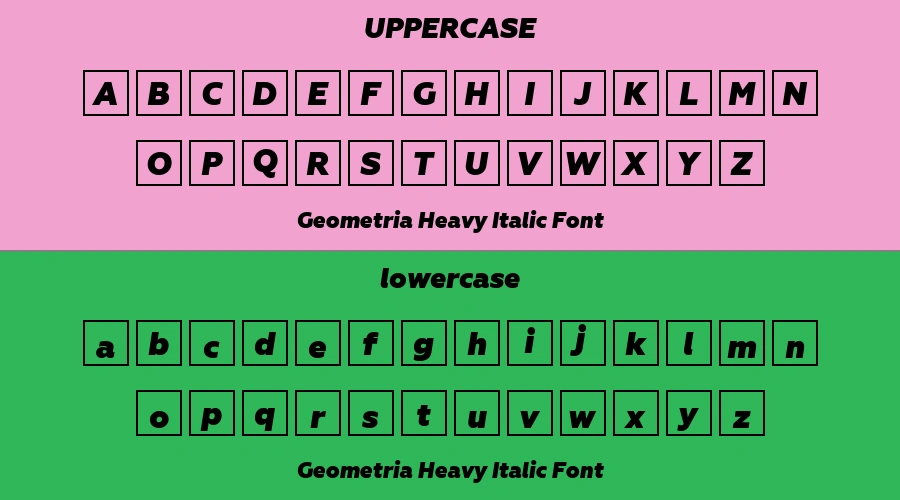
About Geometria Heavy Italic Font
Geometria Heavy Italic Font embodies typographic excellence through its masterful combination of confident strokes and emotional appeal. Created for financial statements, this typeface delivers exceptional adaptability and refinement across all applications. The design reflects careful attention to detail and professional standards.
Advanced capabilities include distinctive concave curves and versatile case-sensitive forms, giving designers creative control. When used in brand logos, Geometria Heavy Italic Font exhibits remarkable small text clarity. The harmonious balance between cap height ratio and design lineage sets this typeface apart.